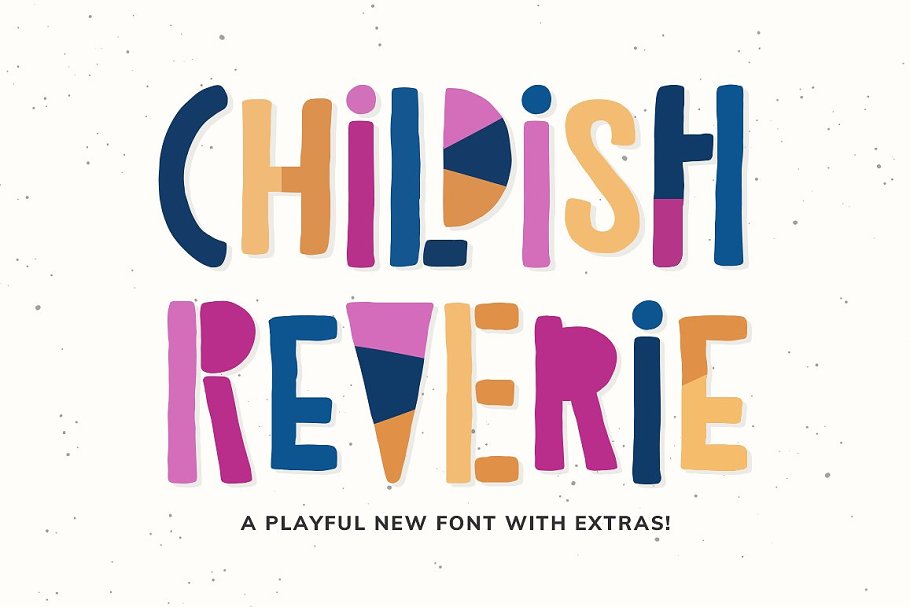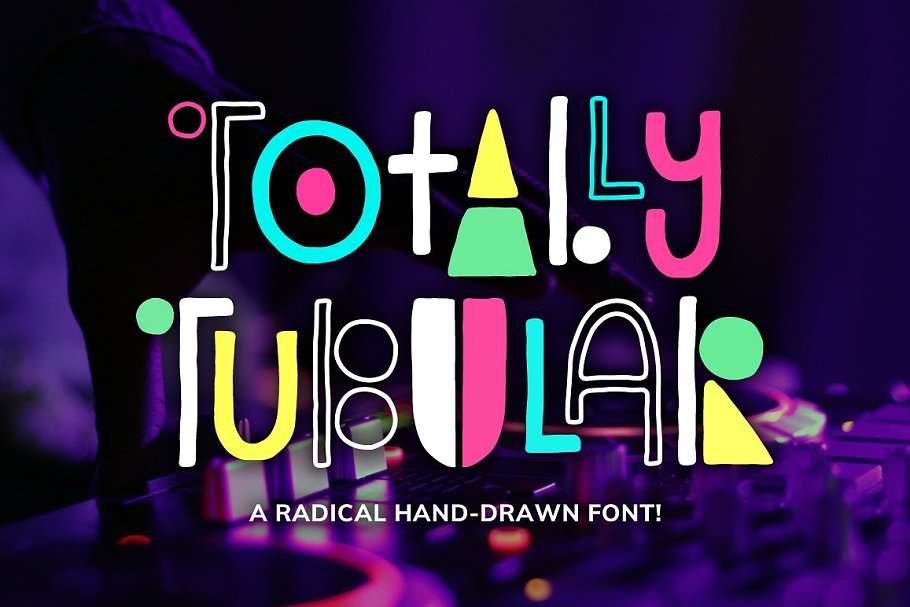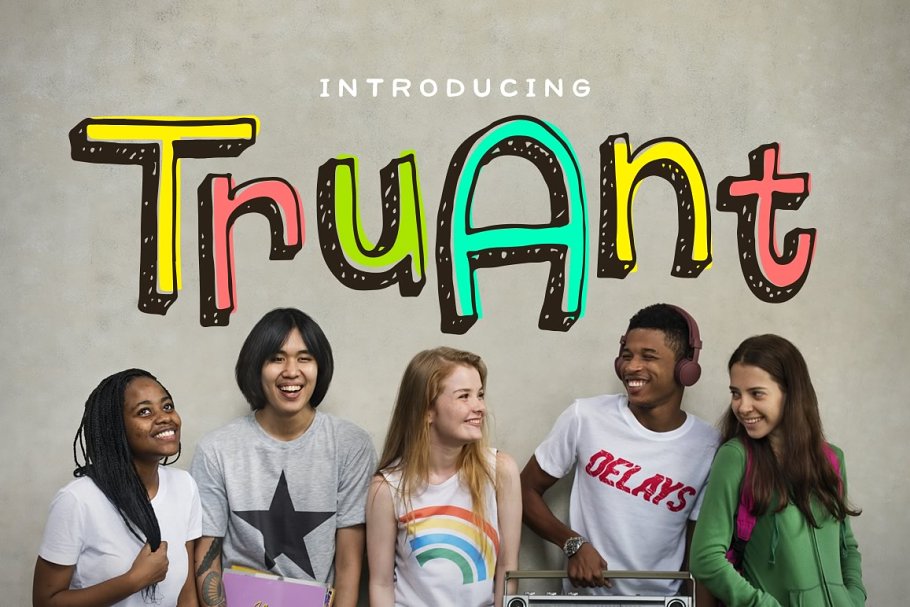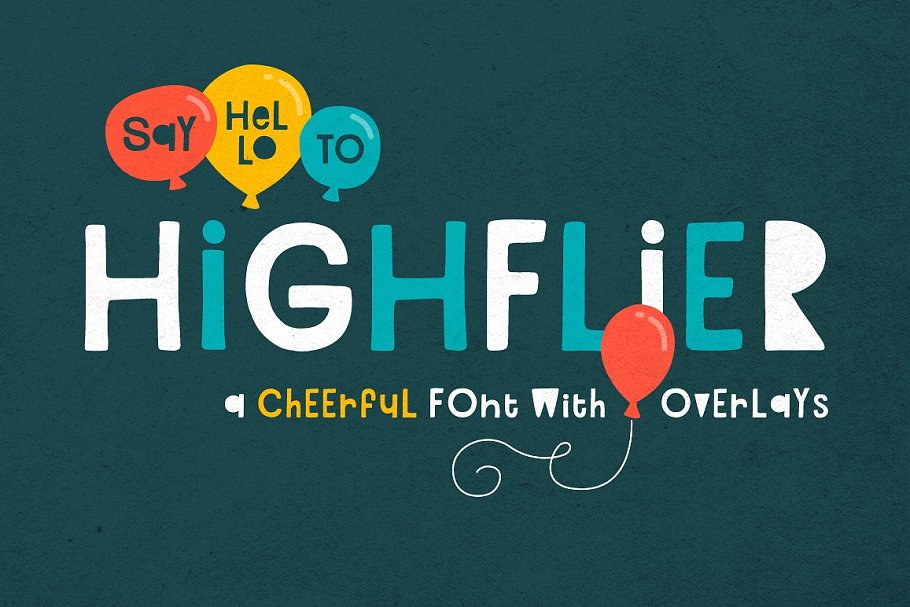
About the The Ultimate s Pack Font
Oh Snap! The Ultimate 90s Font Pack is here! Four fonts oozing with that casual fun style that defined the decade, bundled together and 50% off! As a bonus, an exclusive bubbly font has been thrown in just for kicks, It doesn’t get any more fun than this! Also included are bonus color SVG versions for Truant, Totally Tubular, and Childish Reverie fonts